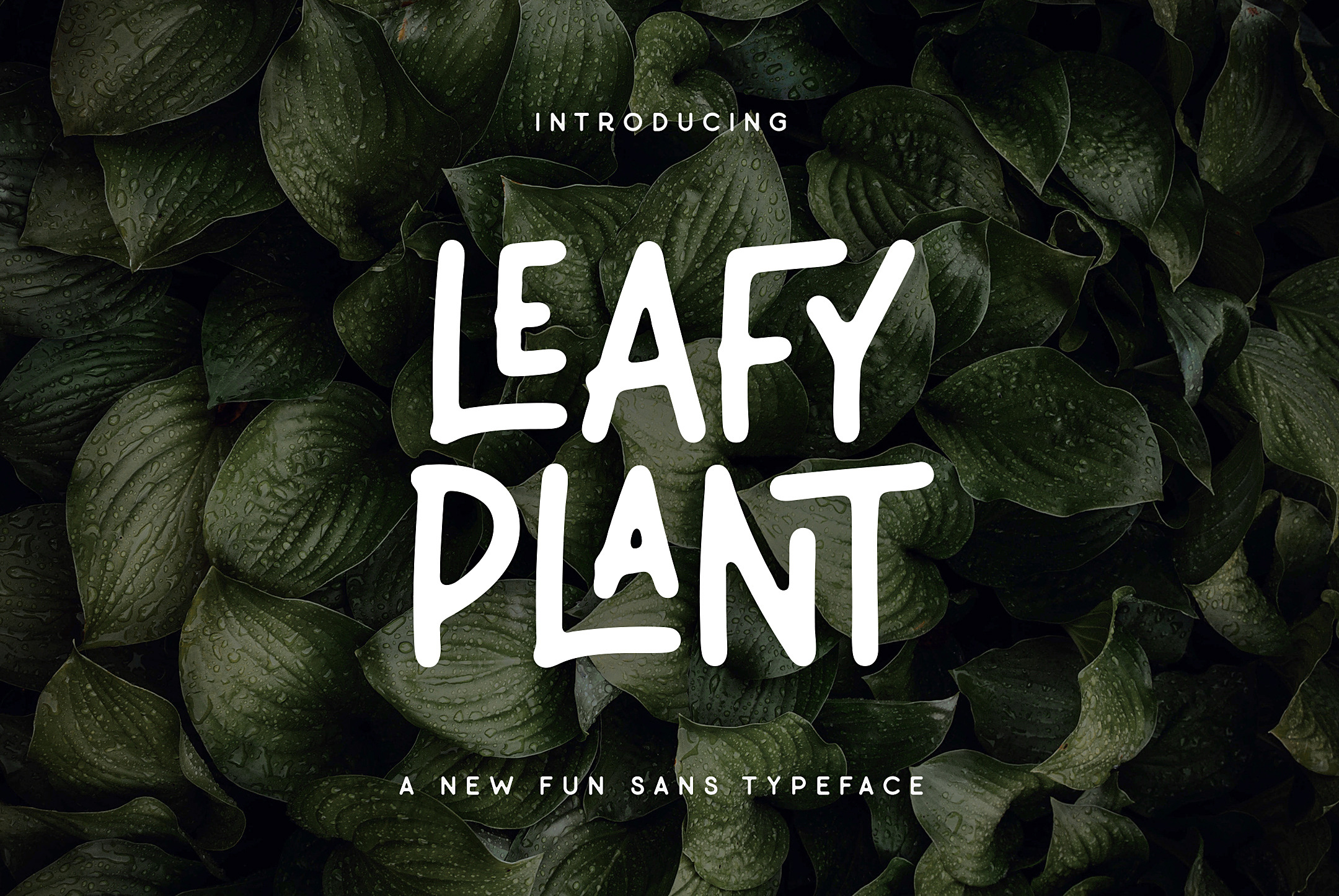
Leafy Plant Fun Typeface
Introducing
Leafy Plant Fun Typeface with plenty Ligatures and Alternates.
Leafy Plant is a clean unique rounded sans serif font. Leafy Plant is the font that I try to bring back fun typeface to popular again. This font have smooth rounded edges so the font gives a feel of clean, unique, fresh, and fun. Come with many alternates character and ligatures, so that you can mix and match to suit your creativity. I think this font is perfect for people looking for fun yet fresh typography.